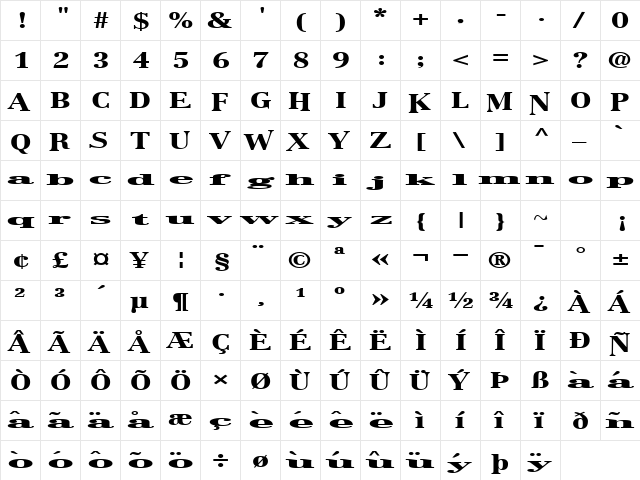
BostonLifeToday1 Regular
Design Context for BostonLifeToday1 Typeface
BostonLifeToday1 is a composed and adaptable typeface that performs quietly and consistently across a wide range of design contexts.